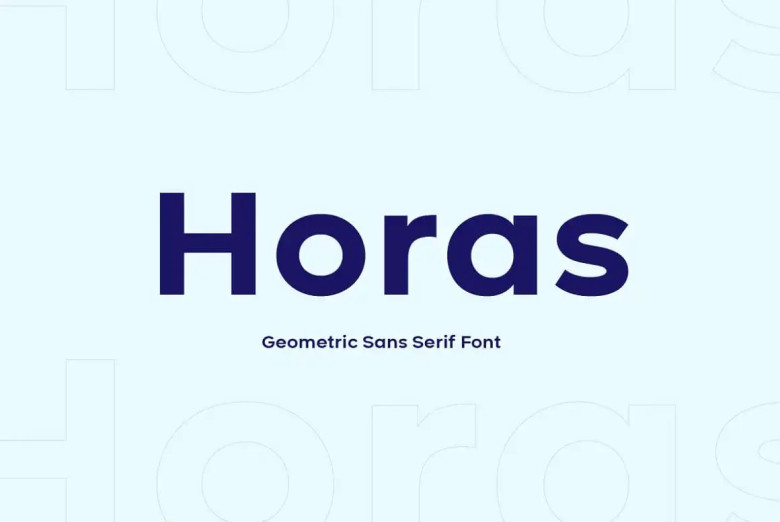
Horas Font Family
Horas is one more magnificent font of modern type face simply with a hint of minimalisms and beautiful geometry. This font is neat and chic sans-serif with the geometrical touch of visa-boldness, which may perfect for various projects. This font can be used properly for both printed and any other electronic media.
In the printed prints used in books and other prints, Horas Sans Serif Geometric will provide clear and professional looking prints and where used in digital settings for instance a website, the type face will not blur when enlarged on any screen.
Horas Sans Serif Font Family